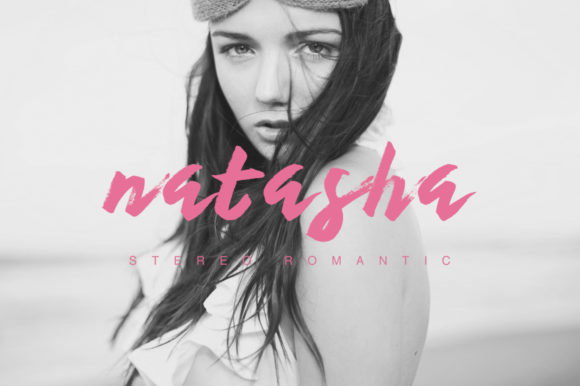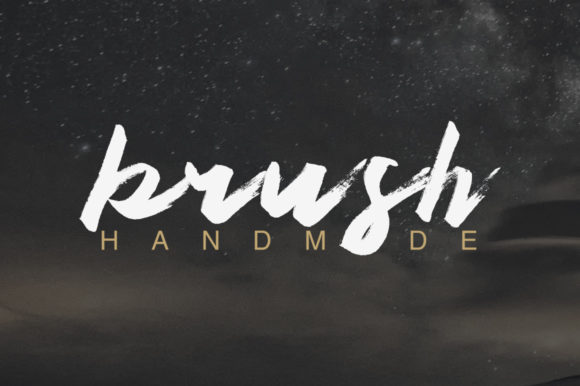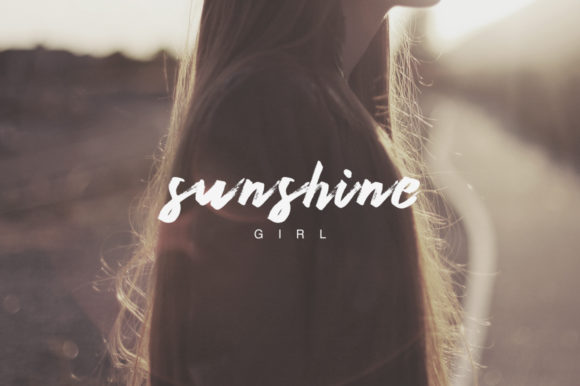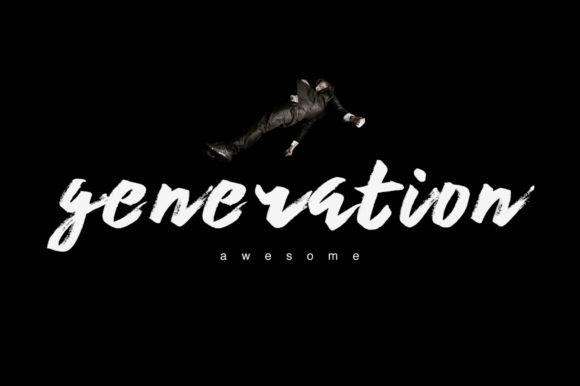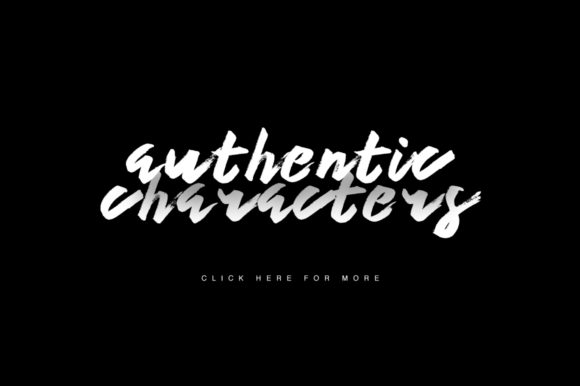
Introducing Authen Font: Elevate Your Designs with an Authentic Brush Handcrafted Feel
In the realm of typography, few fonts manage to capture the essence of handcrafted authenticity. However, Authen Font stands out as a remarkable exception. This stylish display font is meticulously designed to infuse your designs with a genuine, brush-handcrafted feel, setting it apart in the world of digital typography.
The Charm of Authen Font
Authen Font is not just another typeface; it’s an experience. Its unique, handcrafted aesthetic brings a touch of warmth and personality to any design project. Whether you’re working on a logo, a poster, a website header, or any other creative endeavor, Authen Font offers the versatility and charm to make your work stand out.
Key Features of Authen Font
- Authentic Brush Strokes: Each letterform in Authen Font is crafted to mimic the natural, imperfect strokes of a brush. This gives your text a lively, organic look that’s hard to replicate with standard fonts.
- Highly Legible: Despite its stylized appearance, Authen Font maintains a high level of legibility. This makes it perfect for use in a variety of applications, from large-scale banners to smaller, detailed projects.
- Versatile and Adaptable: The font’s adaptability is one of its strongest assets. It can be used in both digital and print media, making it an excellent choice for designers who work across multiple platforms.
- Easy to Pair: Authen Font’s unique style allows it to complement a wide range of other typefaces. This makes it easy to incorporate into your existing design vocabulary.
Who Can Benefit from Authen Font?
Authen Font is a valuable asset for a broad spectrum of designers and crafters, including:
- Graphic Designers: Looking for a distinctive font to add character to their projects.
- Web Designers: Seeking to create engaging and unique website headers or interactive elements.
- Illustrators and Artists: Needing a font that blends seamlessly with their hand-drawn work.
- Crafters and Makers: Aiming to add a personal touch to their product labels, packaging, or promotional materials.
How to Use Authen Font Effectively
To get the most out of Authen Font, consider the following tips:
- Use it Sparingly: Due to its distinctive style, Authen Font can be quite impactful. Using it sparingly for headlines or key phrases can create a powerful visual effect.
- Experiment with Colors: The font’s brush-stroked appearance lends itself well to creative color choices. Experimenting with different hues can enhance its handcrafted feel.
- Combine with Contrasting Fonts: Pair Authen Font with simpler, more straightforward typefaces to create visual contrast and hierarchy in your designs.
Authen Font is more than just a typeface; it’s a tool for designers and crafters to imbue their projects with a sense of authenticity and handcrafted charm. Its unique aesthetic, combined with its versatility and legibility, makes it an excellent choice for a wide range of design applications. By incorporating Authen Font into your typography arsenal, you can elevate your designs, making them more engaging and memorable. So, why settle for ordinary when you can add an authentic brush handcrafted feel to your work with Authen Font?